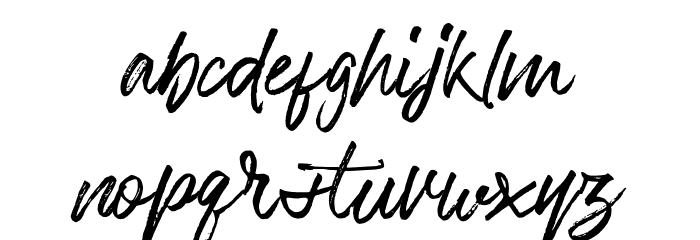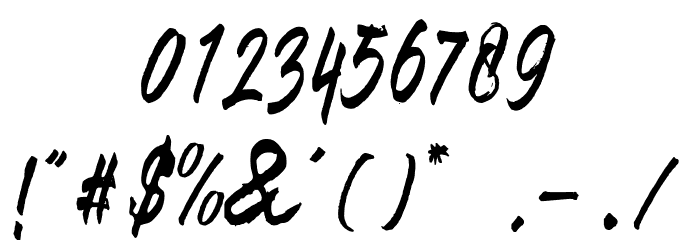
Bentoll-Italic Font
This font features a dynamic and expressive style, characterized by its fluid, cursive strokes and a slightly rough texture that adds a handcrafted feel. The letters are slanted, enhancing the italic nature, and the strokes vary in thickness, providing a lively and energetic appearance. The uppercase letters are bold and prominent, while the lowercase letters maintain a consistent flow, making it ideal for creative and artistic projects. The numerals and special characters are designed to complement the overall style, ensuring versatility across different uses.
A dynamic, cursive font with a handcrafted, italic style.
- Proposed Projects: Ideal for branding, invitations, posters, and artistic designs.
- Use Case: Logos, Headlines, Artistic projects